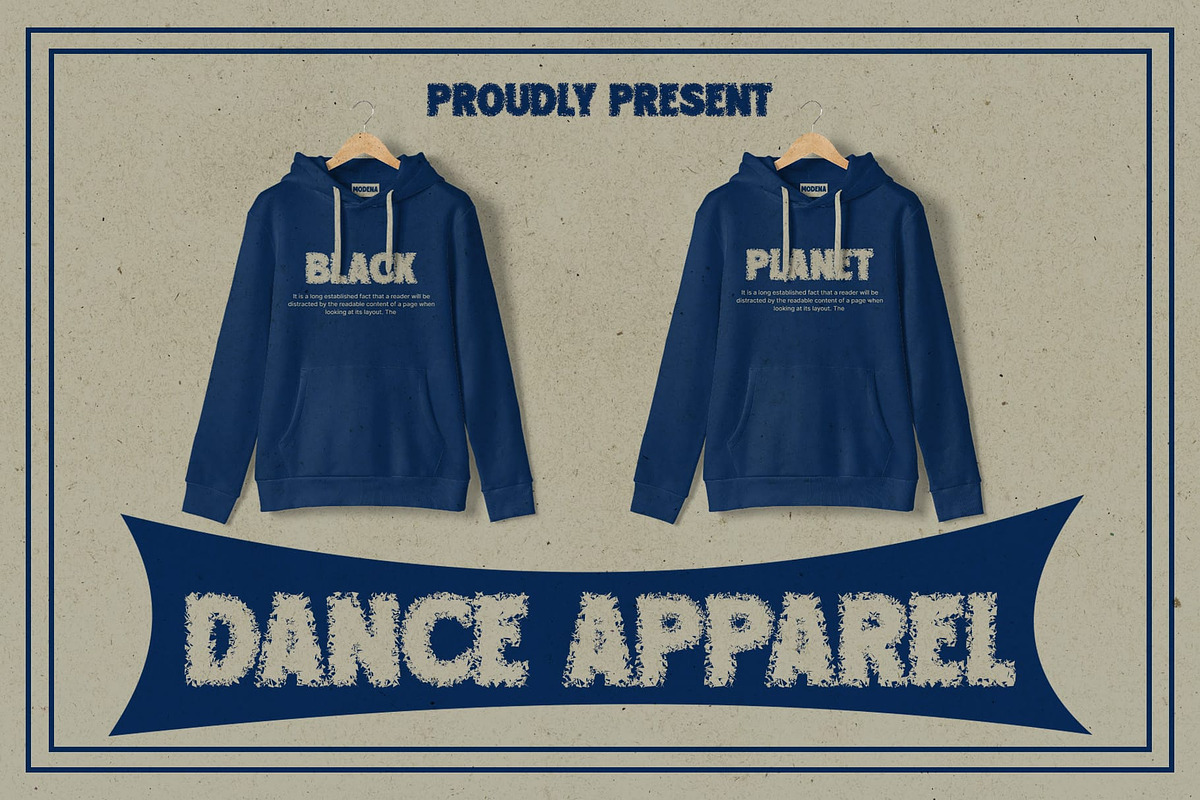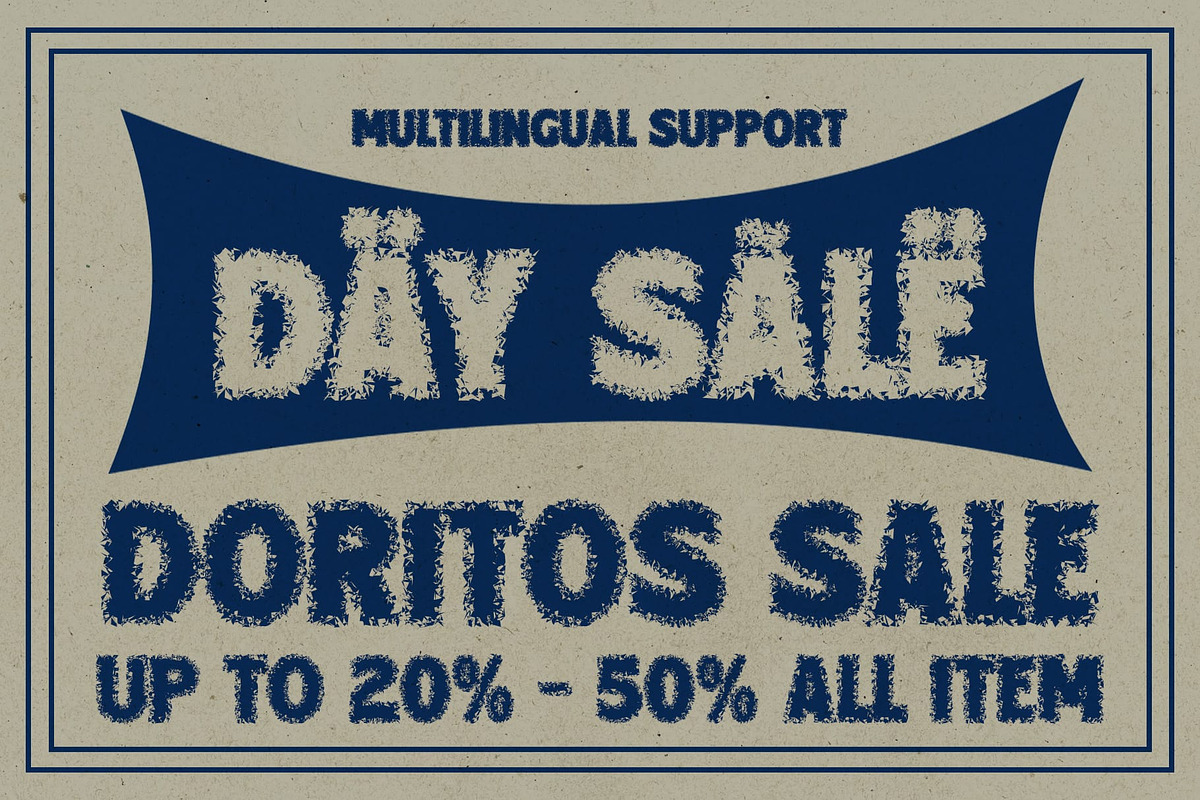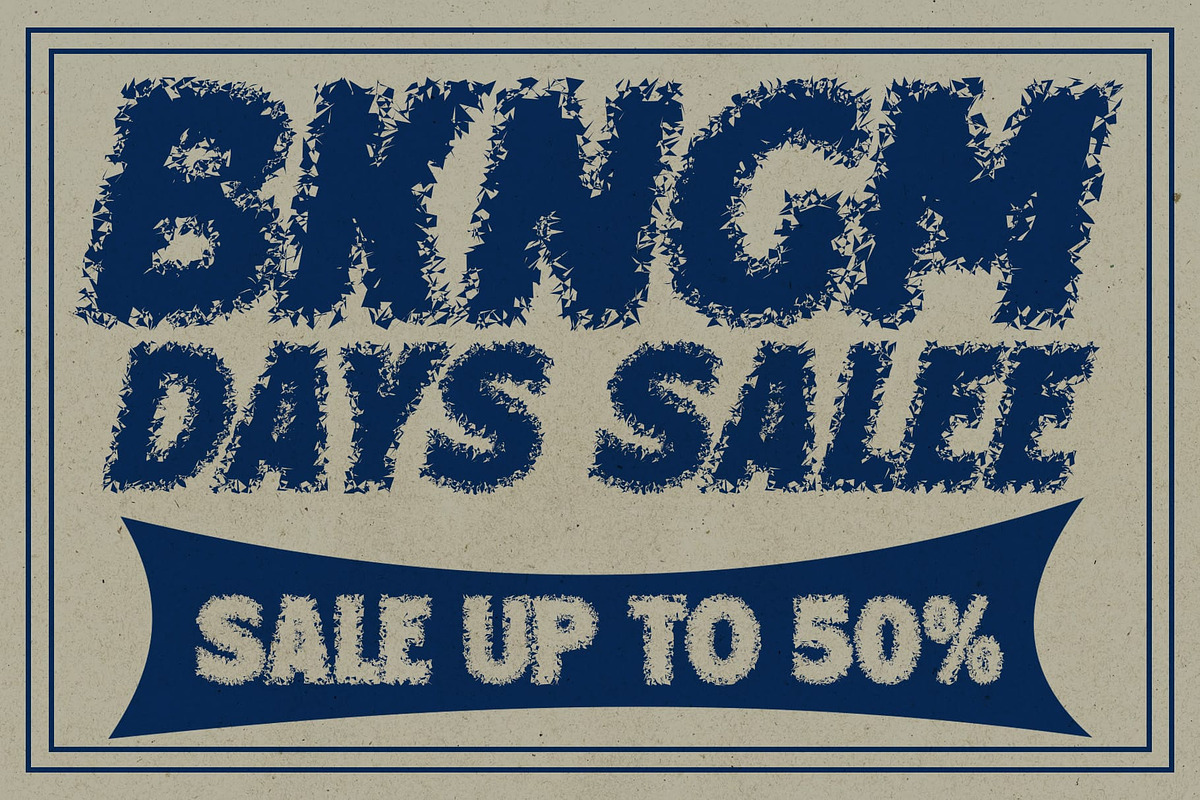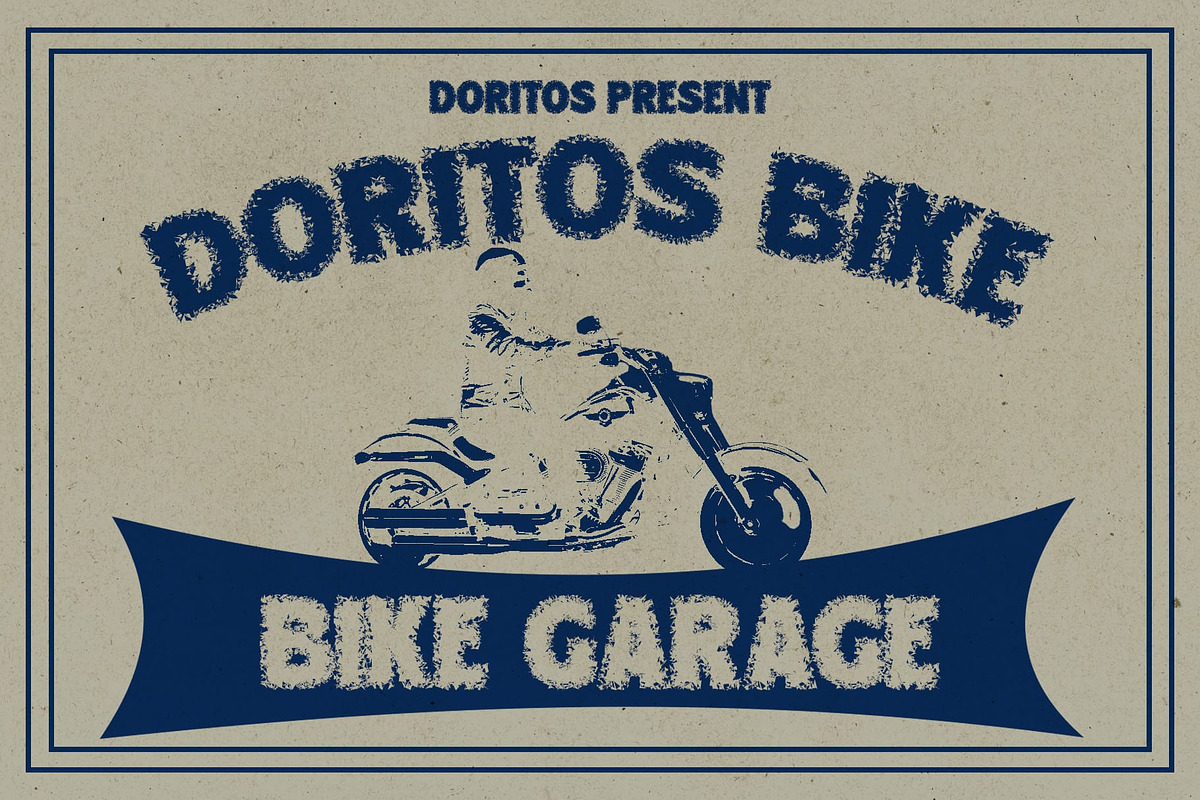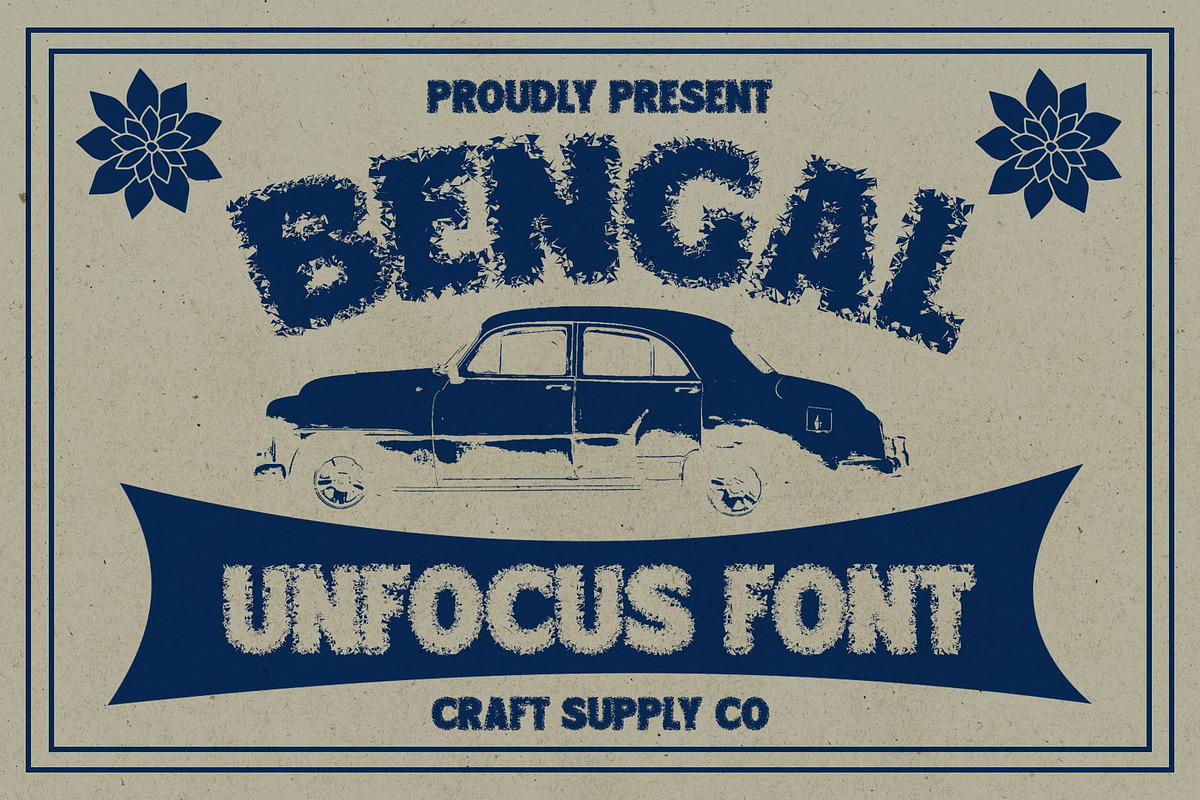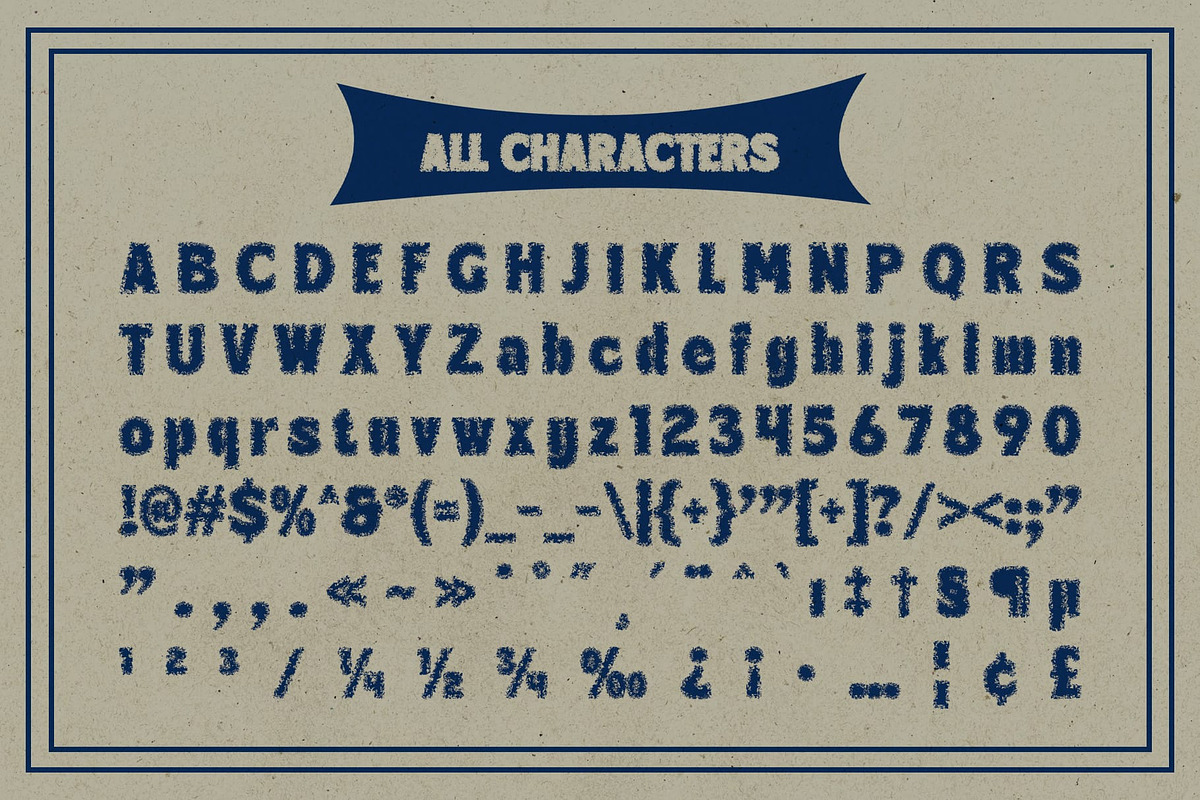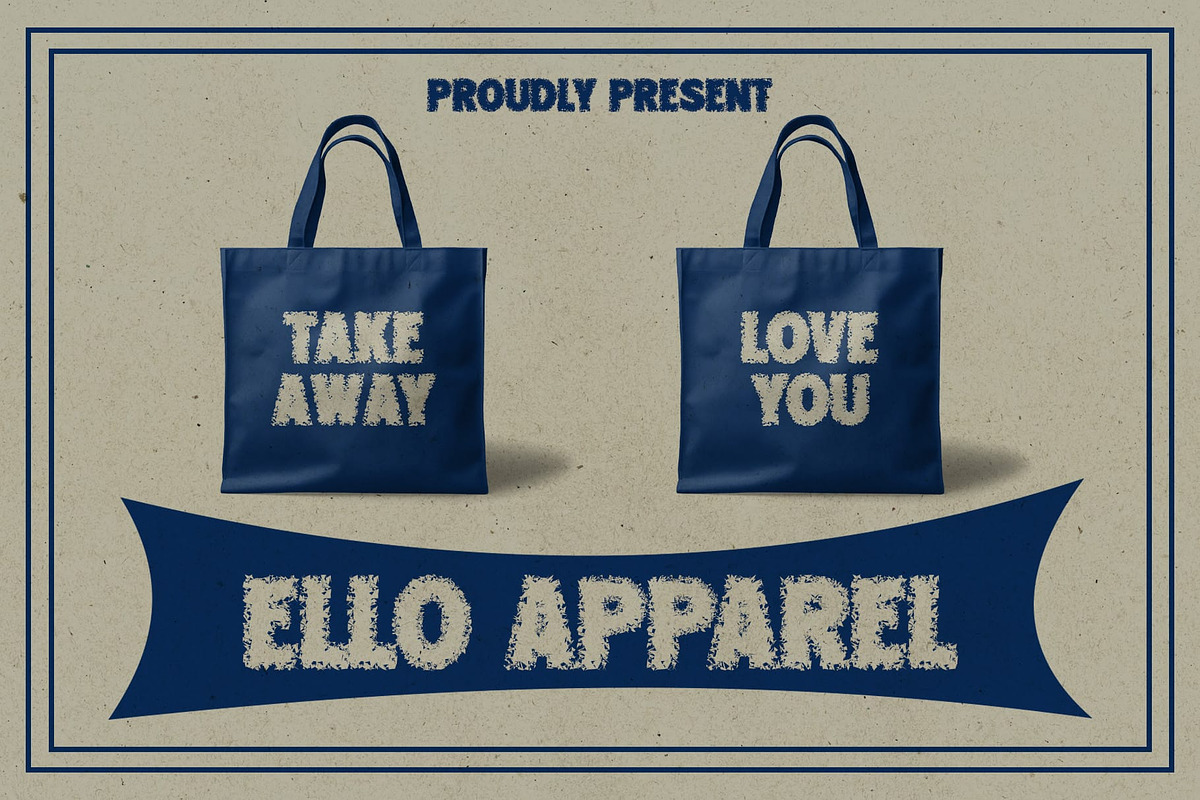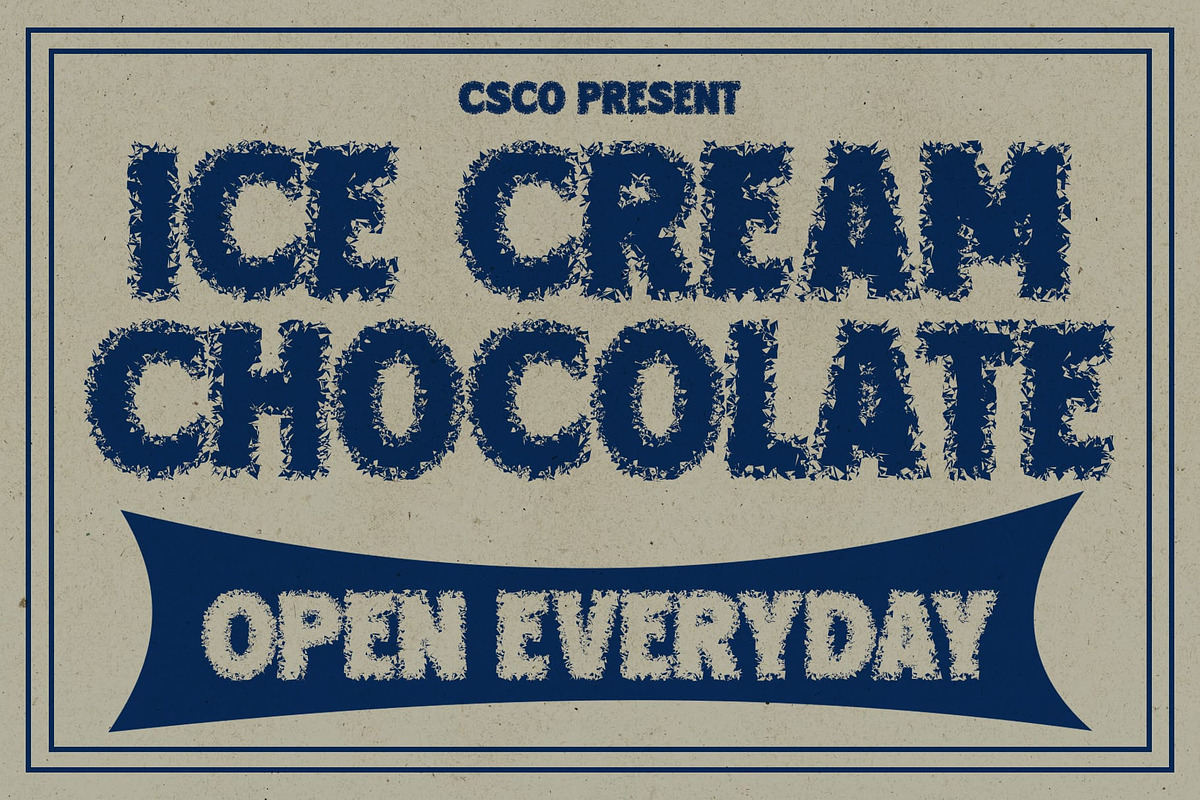
Bengal Unfocus
Bengal Unfocus: Boldness with a Twist
Dynamic Sans Serif Design Bengal Unfocus presents a bold sans serif display font, characterized by its strong and impactful letterforms. Each letter exudes confidence and grabs attention effortlessly.
Unfocus Effect The font is enhanced with an unfocus effect, adding a unique twist to its bold appearance. This effect creates a dynamic visual impact, making the font stand out in any design composition.
Ideal for Display Purposes With its bold sans serif design and unfocus effect, This font is tailor-made for display purposes. It excels in headlines, banners, posters, and any other element where maximum visibility is desired.
Versatile Application Despite its boldness, This font is versatile in its application. Whether used in digital or print media, it brings a modern and edgy vibe to branding, advertising, packaging, and more.
Boldness Elevated with Unfocus This font combines the boldness of a sans serif display font with a unique unfocus effect, resulting in a font that commands attention and adds a contemporary edge to any design project.